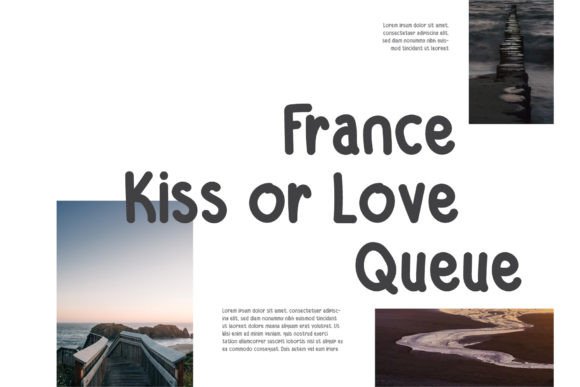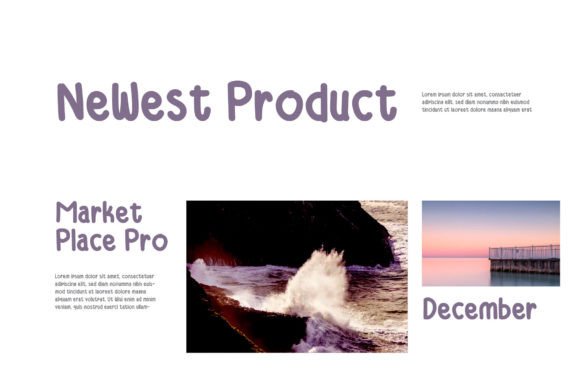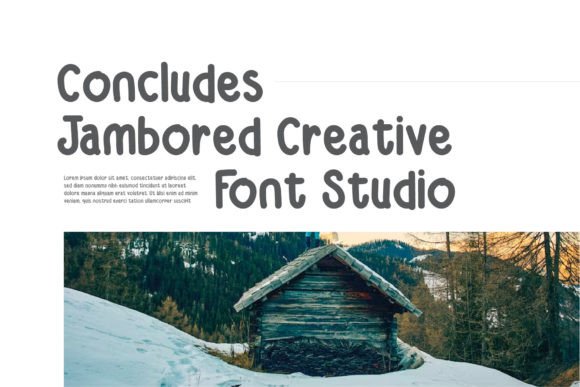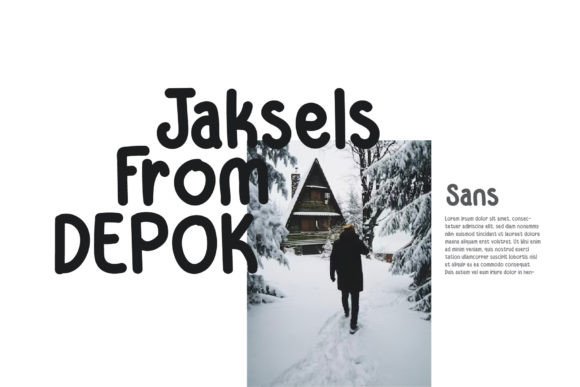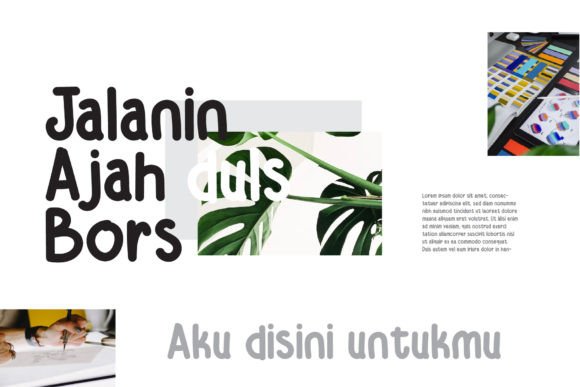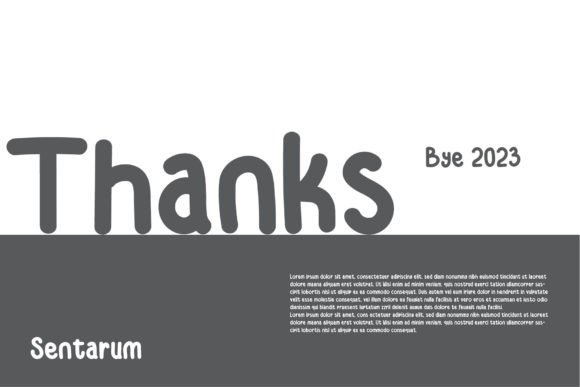
Introduction to Sentarum Jr Font
Remember that moment when you were brainstorming ideas for your next creative project and you just couldn’t find the perfect font to bring your concept to life? It’s frustrating, right? But what if I told you that there’s a font that can add a dash of whimsy and fun to your designs, making them truly stand out? Enter the Sentarum Jr Font, a delightful display font that’s sure to captivate your audience.
As a designer, you’re constantly on the lookout for high-quality design resources that can elevate your work. The Sentarum Jr Font is an excellent addition to your toolkit, offering a transparent background and a quirky charm that’s perfect for cartoon-related designs, children’s games, or any other project that requires a playful touch.
Key Features of Sentarum Jr Font
- High-quality design resource perfect for creative projects, offering a unique and stylish touch.
- Font size: 5,000 characters, providing an extensive range of options for creative expression.
- Resolution: Scalable to any size, making it ideal for both small and large-scale design projects.
- Unique characteristics include its clean and elegant design, making it suitable for a wide range of creative projects, from logos to typography-based designs.
Honest Review: Sentarum Jr Font
I recently had the chance to experiment with the Sentarum Jr Font, and I must say, it’s a great addition to any design resource collection. With its unique blend of modern and traditional elements, this font is perfect for creative projects that require a touch of sophistication.
One of the standout features of the Sentarum Jr Font is its ability to work well with transparent backgrounds. The font’s bold lines and geometric shapes make it an excellent choice for designs that need a bit of visual punch. Plus, it’s available for free download, making it a great resource for designers on a budget.
- Unique blend of modern and traditional elements
- Works well with transparent backgrounds
- High quality design
- Some users may find the font’s bold lines too overpowering
- Not ideal for projects that require a more subtle font
Overall, I’m impressed with the Sentarum Jr Font’s versatility and high quality design. While it may not be the perfect fit for every project, it’s definitely a great addition to any designer’s toolkit. With a bit of creativity, this font can add a unique touch to even the most mundane designs.
Tips for Getting the Most Out of Sentarum Jr Font
When using the Sentarum Jr Font, consider the following tips: use it in combination with other high-quality fonts to create a unique and eye-catching design, experiment with different font sizes and colors to add visual interest, and take advantage of the transparent background to create complex and layered designs.
The Sentarum Jr Font is perfect for a variety of creative projects, including logos, graphics, illustrations, presentations, and documents. Its high quality and transparent background make it an ideal choice for designers, artists, and professionals who want to create unique and engaging designs.